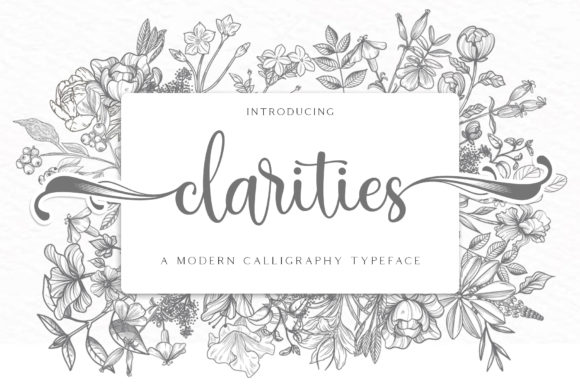
Introducing Clarities Font: A Timeless Handwritten Elegance
In the world of typography, few fonts manage to capture the essence of elegance and sophistication as beautifully as Clarities Font. This stunning handwritten font has been designed to bring a touch of personal warmth and charm to a wide array of design projects, from wedding invitations and thank you cards to quotes, greeting cards, logos, and business cards. With its timeless appeal, Clarities Font is set to become a favorite among designers and crafters looking for that perfect handwritten touch.
The Characteristics of Clarities Font
Clarities Font boasts a range of features that make it stand out in the realm of handwritten fonts. One of its key characteristics is its varying baseline, which gives it a natural, organic feel that mimics handwriting. The smooth lines and gorgeous glyphs add to its charm, ensuring that any design it is used in looks polished and refined. Moreover, the font comes with stunning alternates, providing users with the flexibility to create unique and captivating designs.
The versatility of Clarities Font is one of its most compelling features. It is perfectly suited for:
- Wedding Invitations: Add a touch of romance and elegance to your wedding invitations.
- Thank You Cards: Personalize your thank you cards with a heartfelt, handwritten feel.
- Quotes: Make your quotes stand out with a font that exudes warmth and character.
- Greeting Cards: Whether it’s a birthday, Christmas, or any other occasion, Clarities Font is perfect for greeting cards.
- Logos: Create a memorable logo that captures the essence of your brand with a personal touch.
- Business Cards: Stand out in the professional world with elegant, handwritten business cards.
Why Choose Clarities Font?
In a market flooded with countless fonts, Clarities Font offers a unique blend of elegance, versatility, and user-friendliness. Here are a few reasons why designers and crafters should consider adding it to their collection:
- Timeless Appeal: Unlike trendy fonts that may quickly go out of style, Clarities Font has a timeless quality that ensures your designs remain elegant and relevant.
- Highly Customizable: With its range of glyphs, swashes, and alternates, Clarities Font offers endless possibilities for creative expression.
| Font Name | Clarities Font |
| Author | RochArt |
Clarities Font is more than just a typeface; it’s a tool for designers and crafters to infuse their projects with a personal, handwritten touch. Its timeless elegance, combined with its versatility and ease of use, makes it an invaluable addition to any design toolkit. Whether you’re working on wedding invitations, business cards, or any other design project, Clarities Font is sure to bring a level of sophistication and charm that’s hard to achieve with standard fonts. So, if you’re looking to elevate your designs and give them a unique, personal feel, Clarities Font is definitely worth exploring.